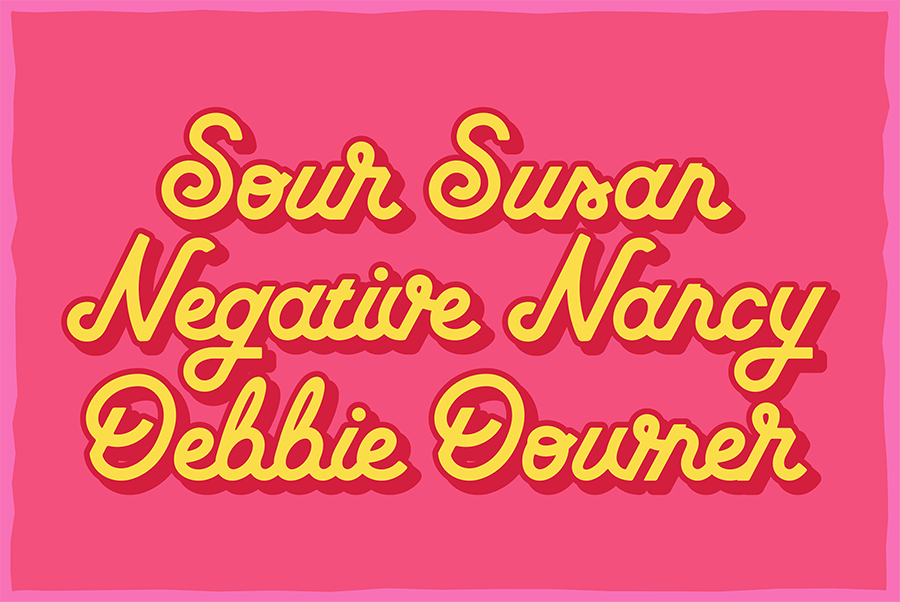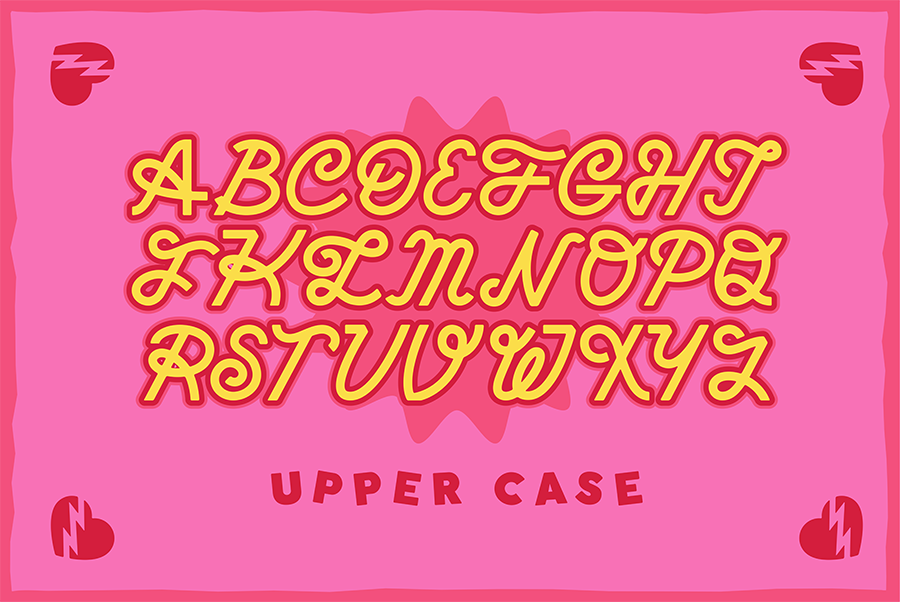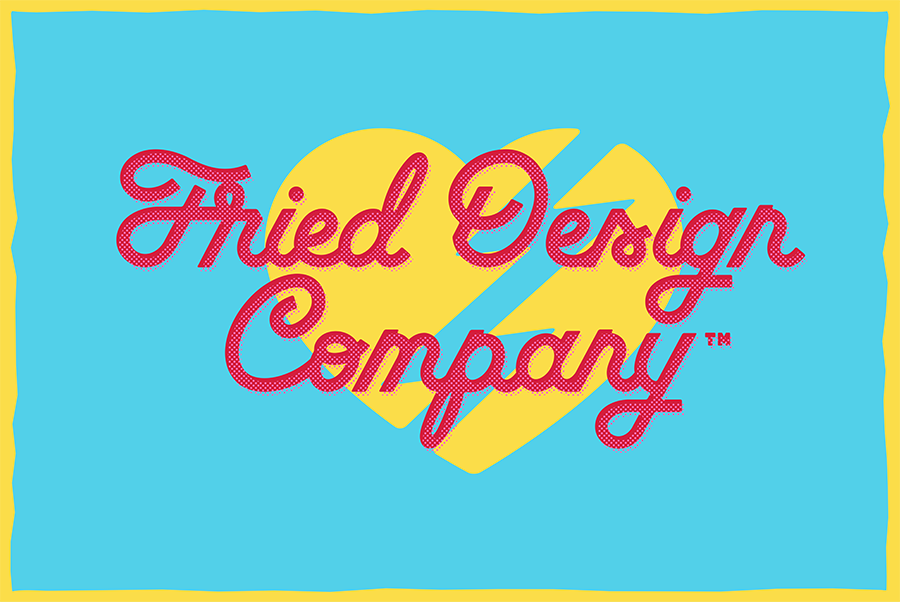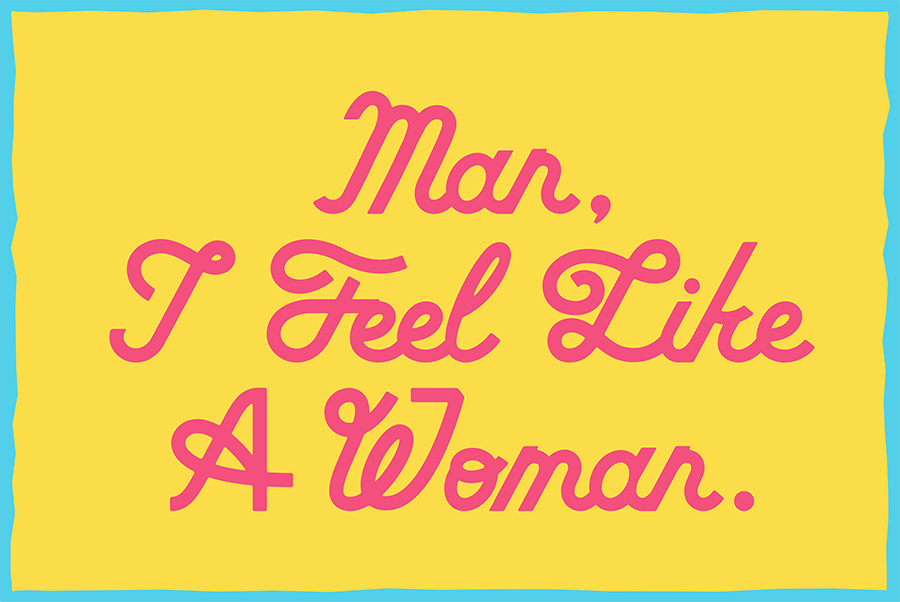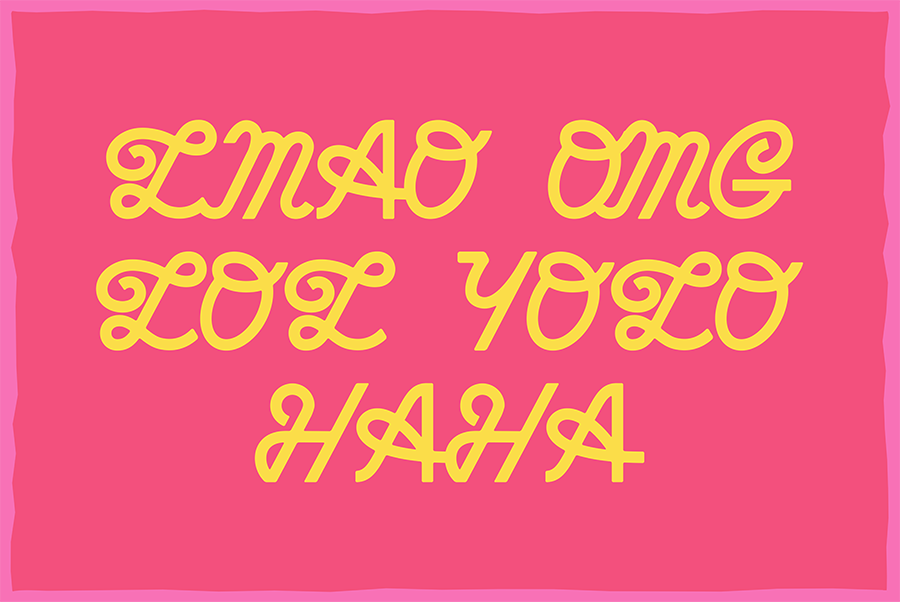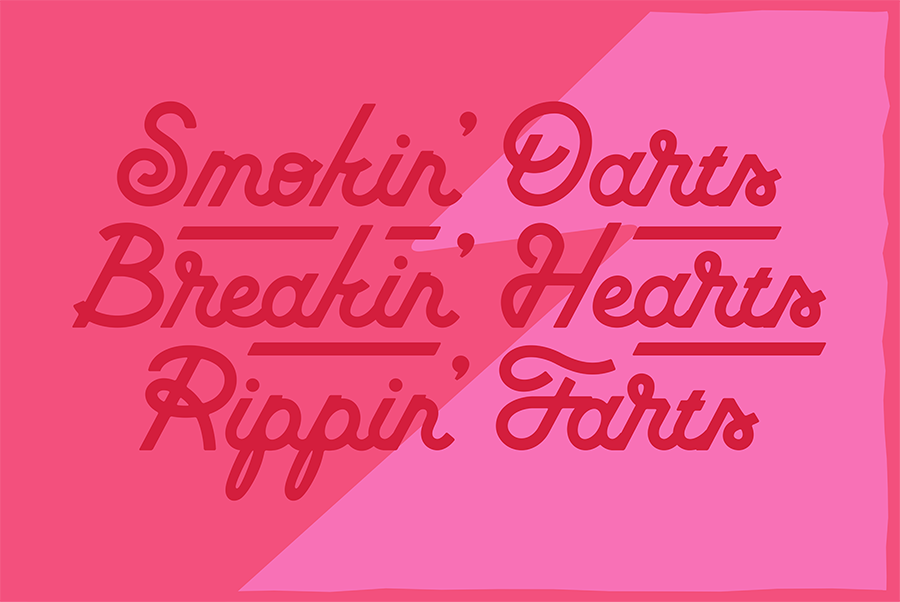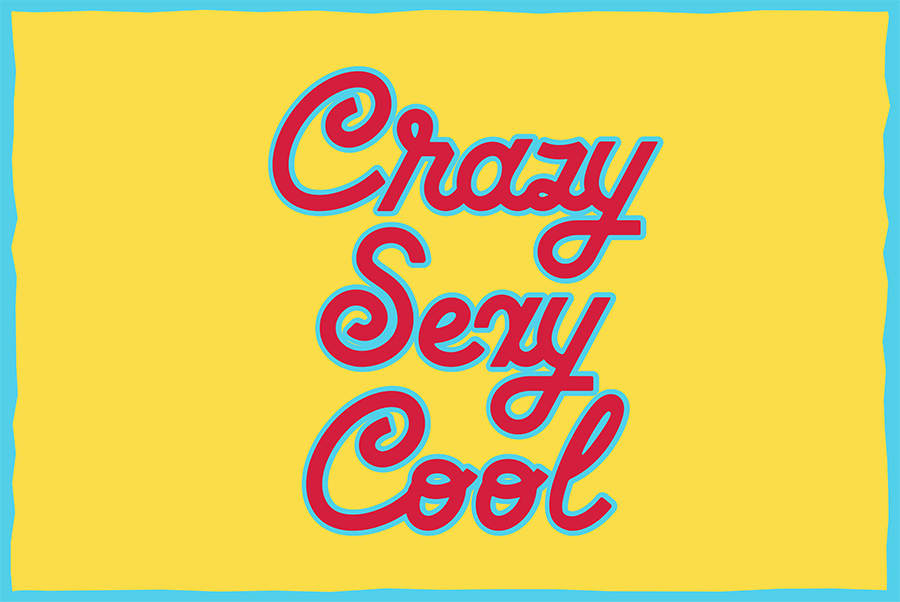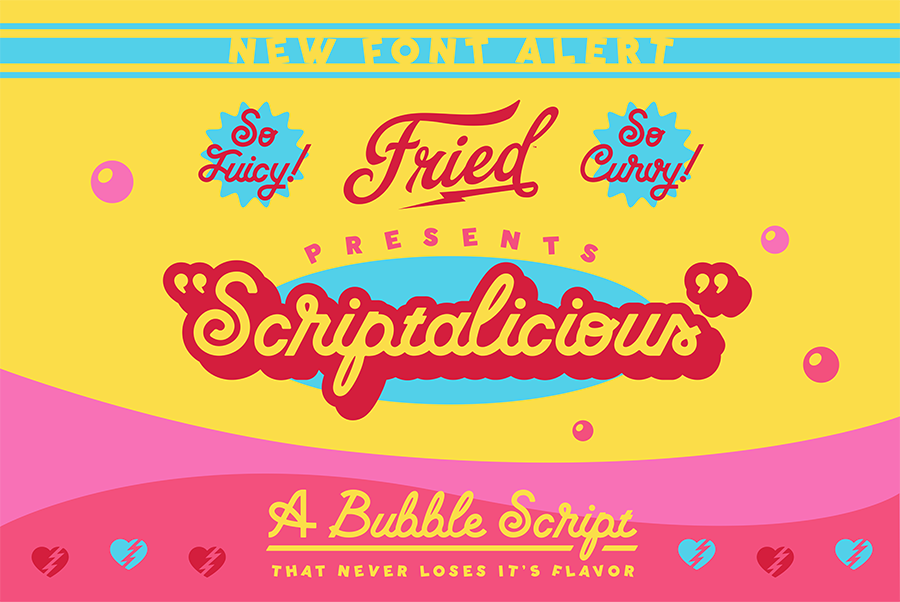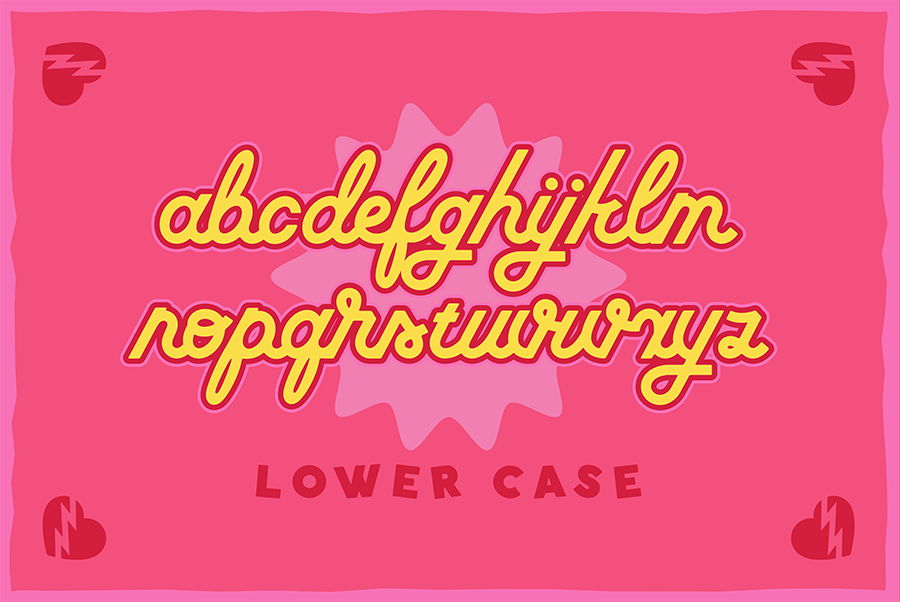
Scriptalicious Font
Picture this. It’s summer time, preferably. Mom is graciously dropping a few quarters into your raisiny chlorine stained palm, and you feverishly trot (lifeguards hate running) to buy the candy with the most obnoxious packaging that calls to you at the pool snack stand. Or how about this one. It’s the morning on a weekend, and you crushed more waffles and orange juice than even you expected. With syrup still stuck to your cheeks, and no job or chores on the horizon, you flip on the holy grail lineup of Saturday morning cartoons. Bright, lively, even juicy title screens, theme songs, commercials, outfits, and ridiculous character personalities pour into your retinas and intoxicate your brain. One more. You’re straight lounging in the backseat of your parent’s minivan, and the windows are cracked in that weird horizontal way. As you slip into a daydream session, a barrage of bubbly pop songs invade the open cabin air through the FM radio. Songs about innocent love, dancing carefree all night, and sliding down a rainbow to a sleepover at your best friends (ok that one was a little bit of a stretch, but we had you right?)
You feel it yet? Don’t worry. It’s just Scriptalicious, Fried Design Co.’s new bubble script. Full of flavor and soft curves that just won’t quit. Reminiscent of the candy packaging, cartoons, and guilt-free bubblegum pop we grew up on. When I script, you script, we script!